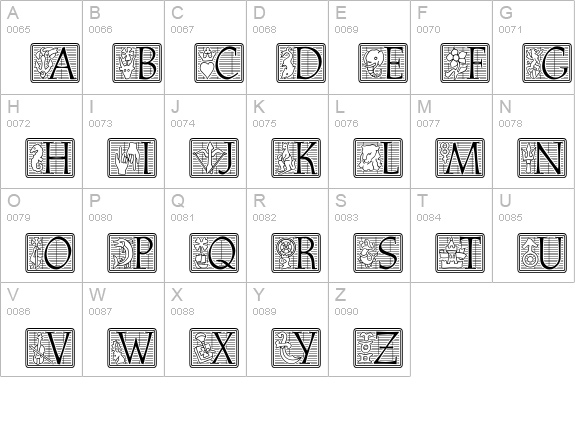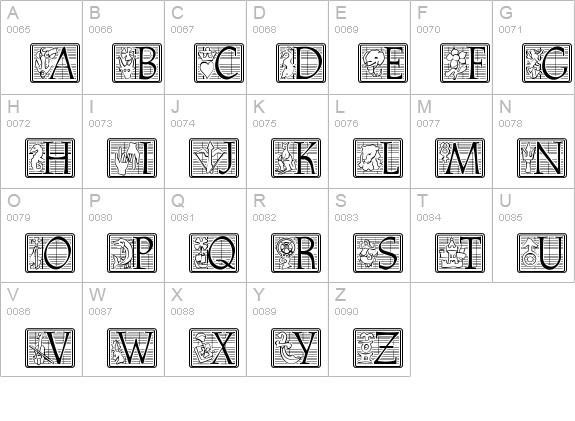
Athenaeum Initial Positive Std Font Details
Athenaeum Initial Positive Std is a captivating and elegant font that exudes sophistication and class. With its intricate details and timeless design, this font is perfect for adding a touch of refinement to any project. The carefully crafted letterforms are both classic and modern, making Athenaeum Initial Positive Std a versatile choice for a wide range of design applications. Best of all, Athenaeum Initial Positive Std is available for free download at FontsMarket.com, allowing designers to access this high-quality font without any cost. Whether you're working on a branding project, editorial design, or any other creative endeavor, Athenaeum Initial Positive Std is sure to elevate your work with its distinctive charm and style. Download this exquisite font today and enhance your designs with a touch of sophistication.